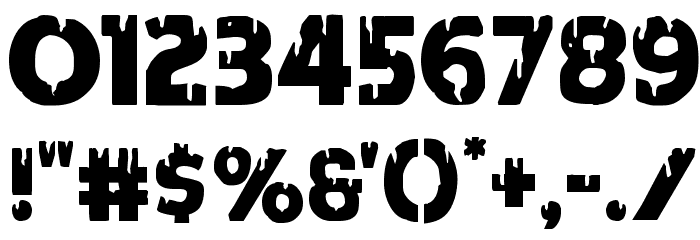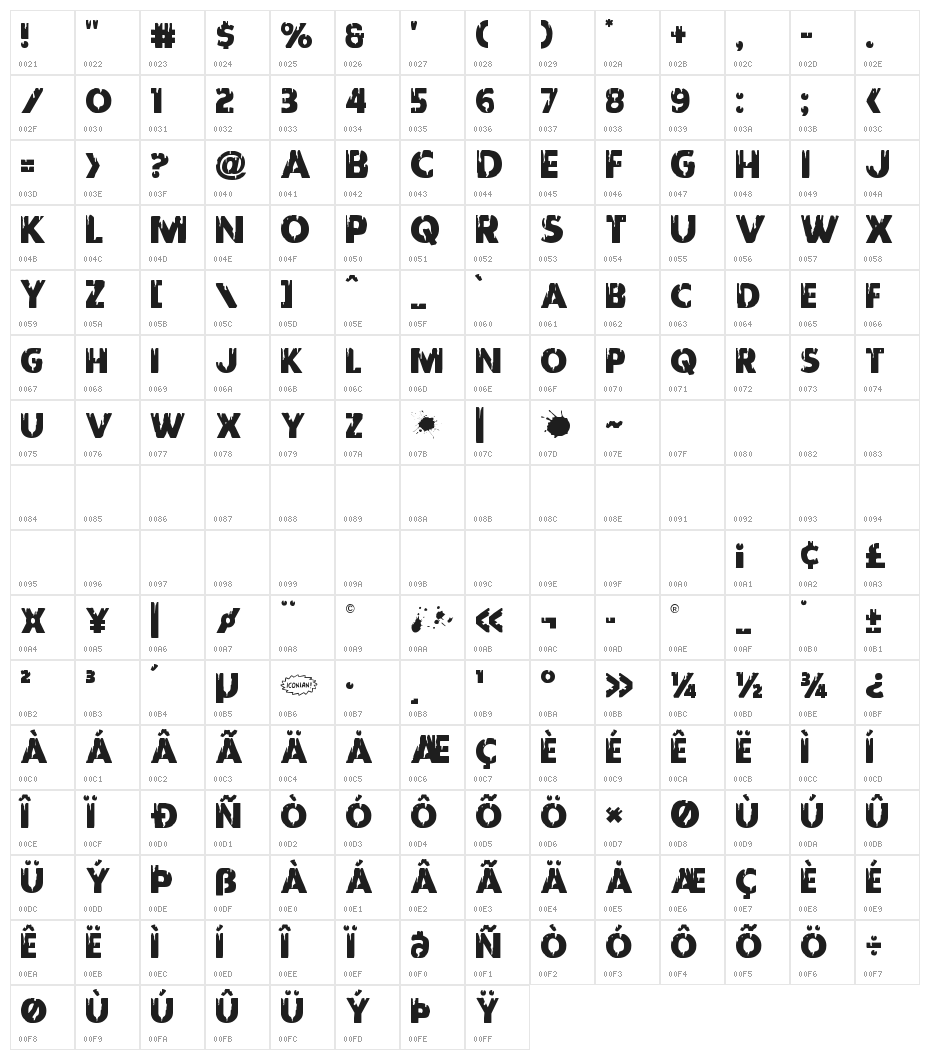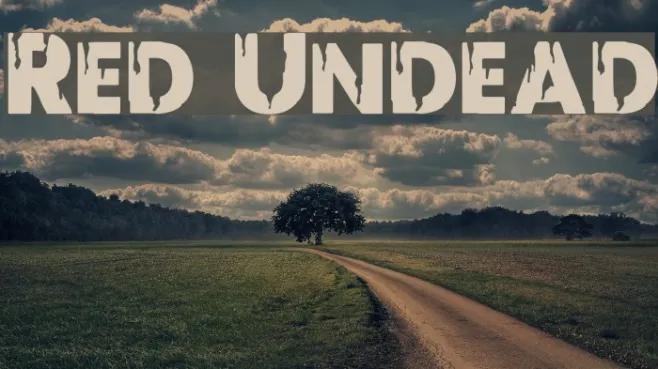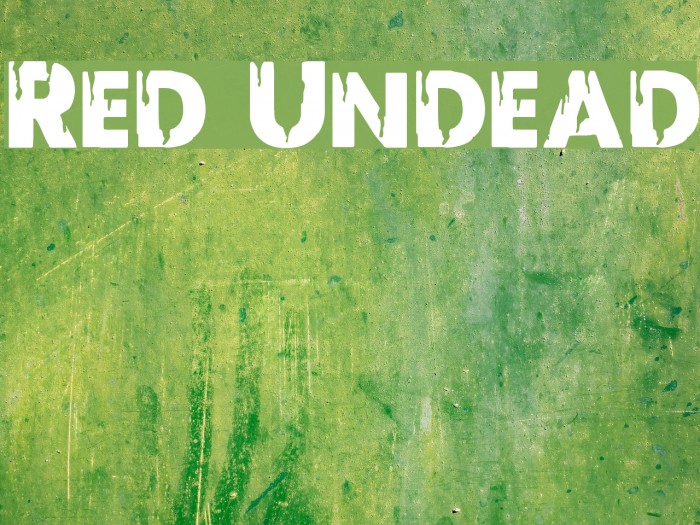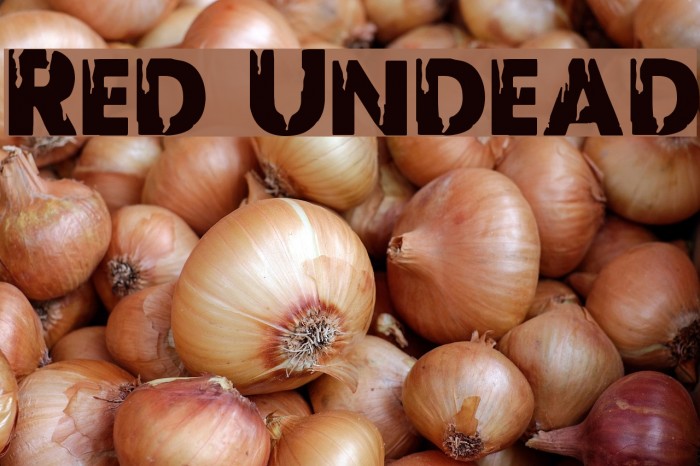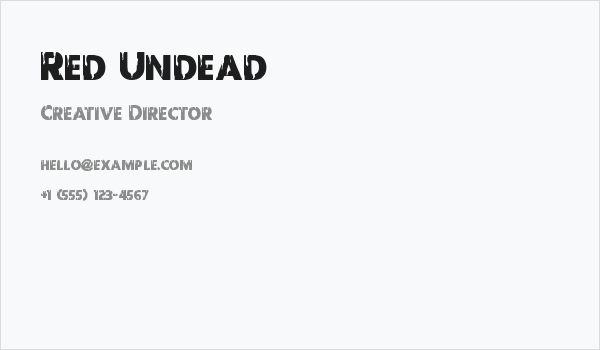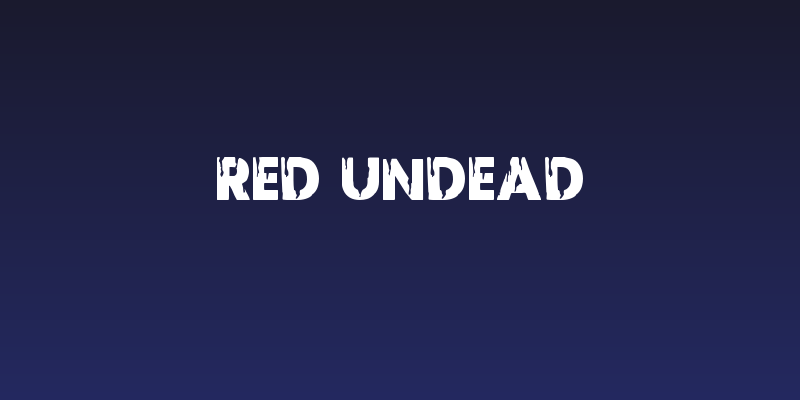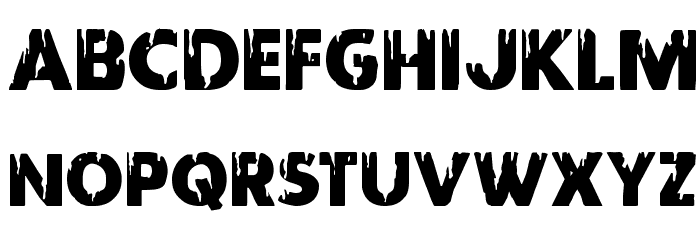
Red Undead Font
Red Undead Description
This font features a bold and distressed style, with a rugged and worn appearance that gives it a unique character. The letters are heavily stylized with rough edges and irregular shapes, creating a sense of movement and energy. The uppercase and lowercase letters maintain a consistent design, while the numbers and special characters follow the same distressed aesthetic. This font is ideal for projects that require a bold and impactful look, such as posters, album covers, or branding for edgy and modern products.
| Proposed Projects | Ideal for posters, album covers, edgy branding, and modern product designs. |